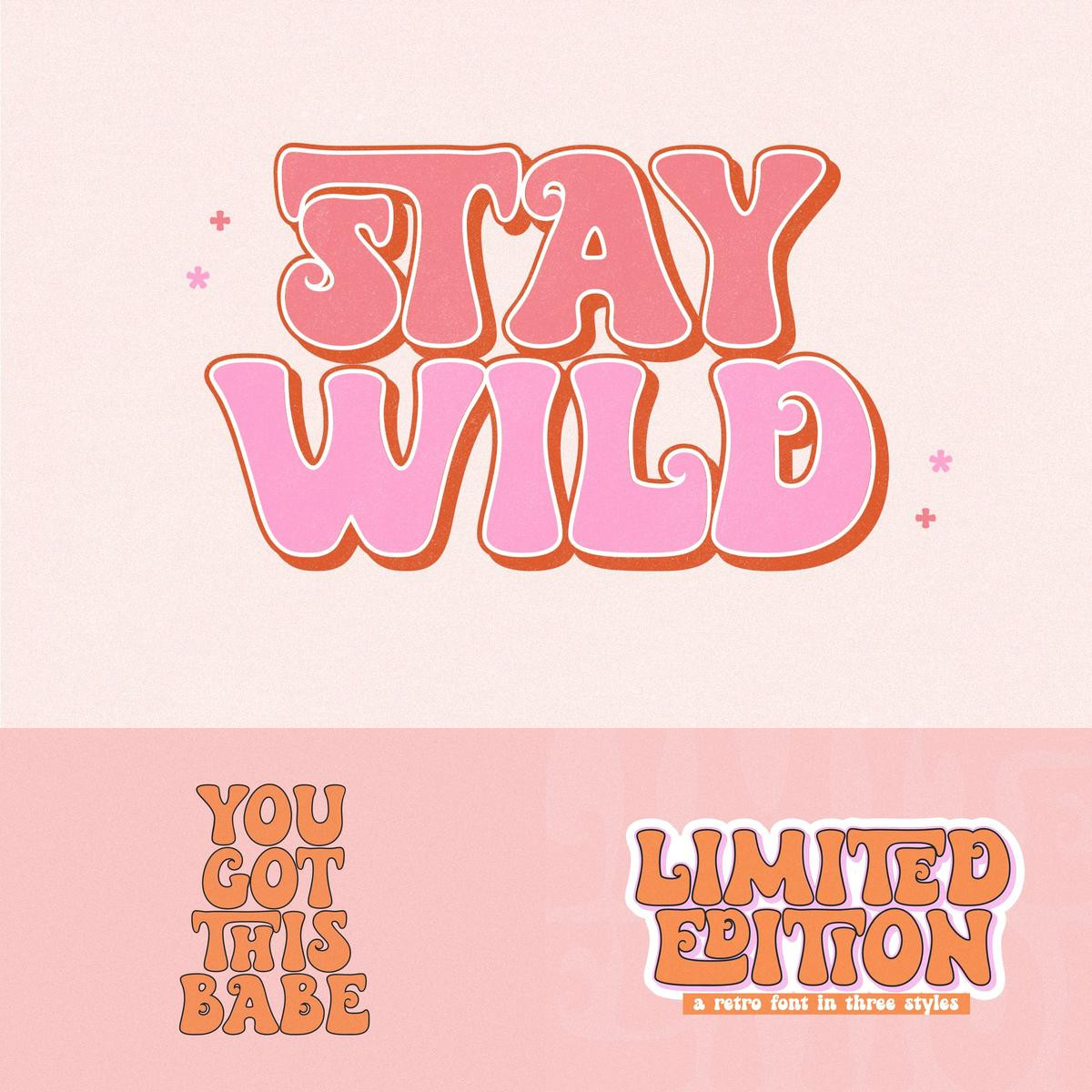
**Limited Edition** is a retro font with three styles. This font comes with a regular solid version, an outline and a shadow effect. These three fonts work together to layer your perfect vintage design!